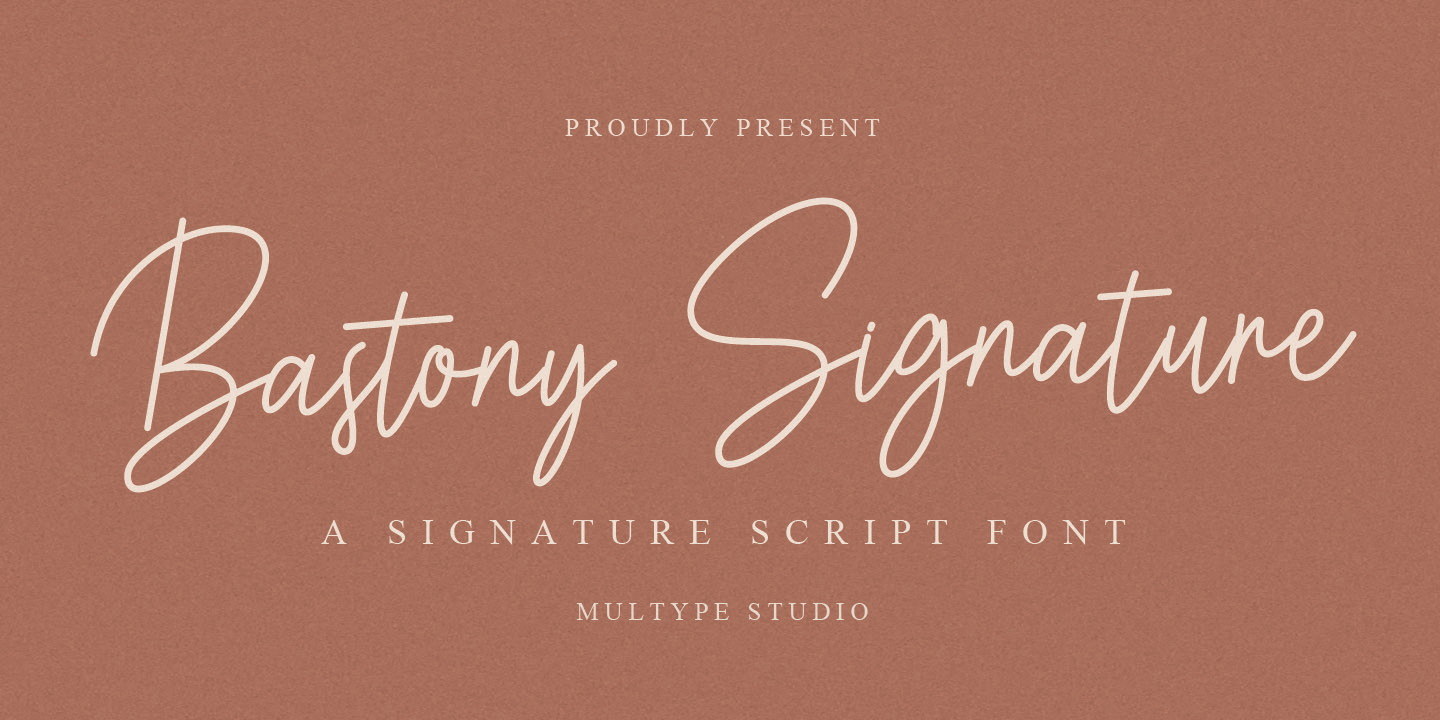
The Bastony Signature Font is an excellent choice for designs that demand a personal, elegant, and profoundly authentic handwritten aesthetic, perfect for conveying heartfelt emotion and refined charm. Imagine it lending an air of sophistication to personal branding for artists and creatives, gracing the covers of heartfelt memoirs, or adding a bespoke feel to exclusive product packaging. It's also perfectly suited for luxurious wedding invitations, upscale event signage, and any project where you want to evoke a sense of individual craftsmanship, intimacy, and lasting beauty. With its fluid strokes and graceful connections, the Bastony Signature Font is ideal for projects that seek a distinctive and personal impression.
What makes the Bastony Signature Font truly exciting is its ability to infuse designs with immediate warmth and an unmistakable sense of human artistry. It feels genuinely hand-written, giving your creations an intimate and exclusive quality. The natural flow and subtle variations in its letterforms create a unique signature style that is both visually captivating and remarkably legible for a script font. This font is perfect for establishing a brand identity that feels luxurious, trustworthy, and thoughtfully crafted, ensuring your message is not just seen, but deeply felt. The Bastony Signature Font Free Download offers a fantastic opportunity to infuse your projects with this distinctive charm.
The Bastony Signature Font family is typically designed to offer versatility while maintaining its signature elegant and flowing style. While specific family members can vary, you can often expect to find:
Bastony Signature Regular (the primary elegant script)
Bastony Signature Bold (for added emphasis on titles or special words)
Bastony Signature Slanted (or Italic, for a slightly more dynamic lean)
Bastony Signature Swash (often including decorative ligatures, alternate characters, and flourishes to enhance its calligraphic feel and provide creative embellishments)
Bastony Signature Ligatures (a specific set of combined characters for a more natural, authentic flow)
These variations provide flexibility for different design applications, allowing you to create engaging visual hierarchies and maintain a consistent, charming aesthetic across all your projects.